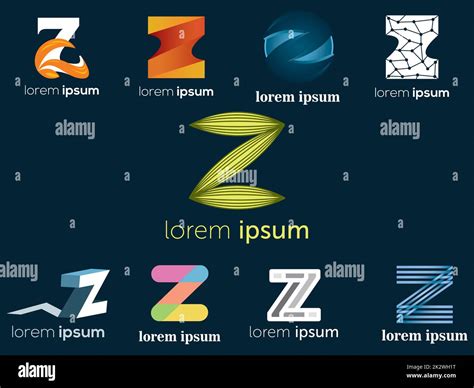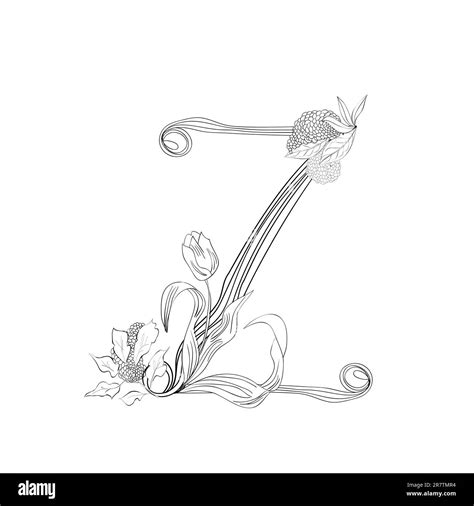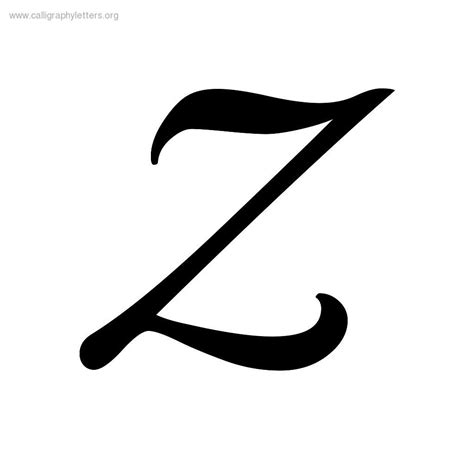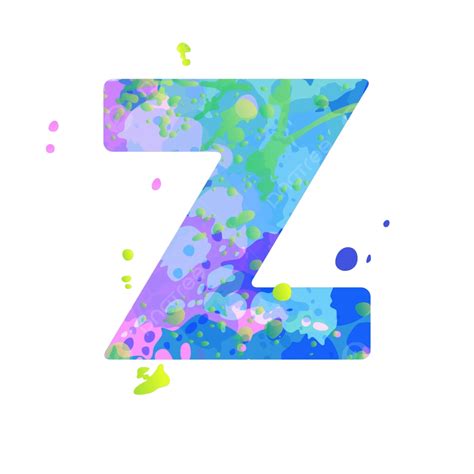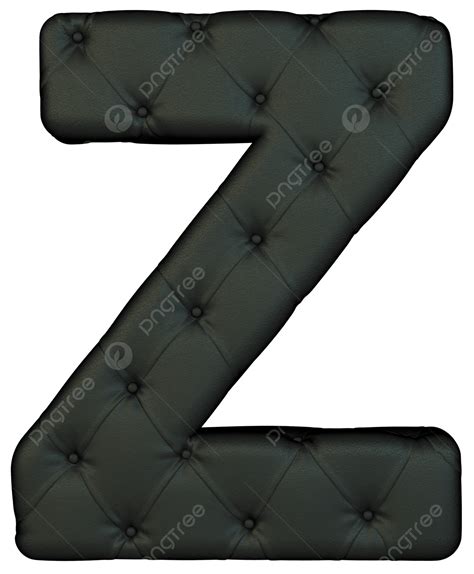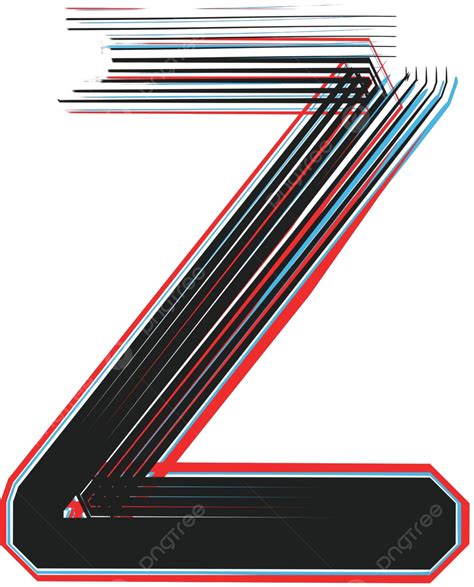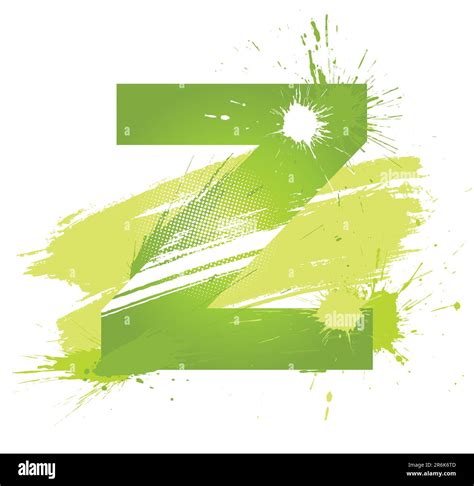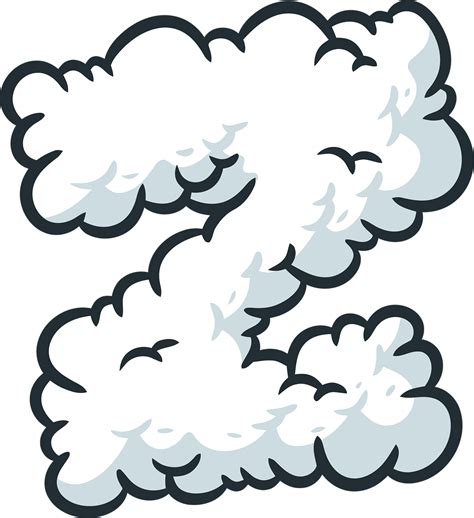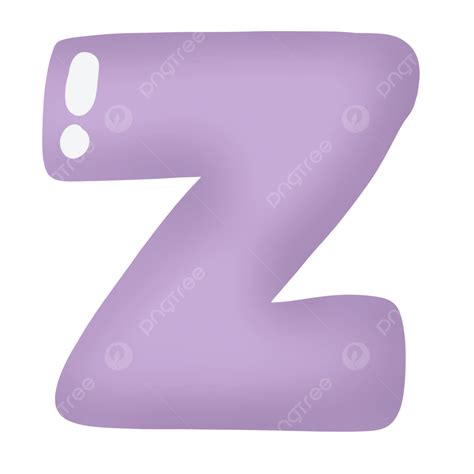
Finding the perfective Font For Z can oft sense like searching for a needle in a hayrick, peculiarly when you are trying to capture the unique geometry of the last letter of the alphabet. The letter Z is characterized by its sharp angles, aslant cva, and proportionate weight distribution, which can be tricky for many face to balance effectively. Whether you are plan a flowing logo, a high-fashion column gap, or a minimalist interface, take a typeface that complements the typical silhouette of the Z is essential for visual concordance. By exploring several typographic styles, from geometric sans-serifs to expressive display fonts, designer can ensure that every fibre, particularly the final one, vibrate with the destine mood and message of their originative task.
The Anatomy of the Letter Z
Understanding why choose a Font For Z matters requires a nigh face at the anatomy of the letter itself. The Z is fundamentally an angular quality that bank on horizontal and slanting interplay. Unlike the rhythm O or the erect I, the Z create stress and directionality.
Geometric vs. Humanist Styles
When you are looking for the best typeface, you must decide between two primary way:
- Geometrical Sans-Serifs: These prioritise mathematical precision. The Z in these fonts often features perfectly parallel top and prat bars, creating a very stable, mod face.
- Humanist Typefaces: These font proffer more variation in stroke breadth and lineament structure, do the Z feel more organic and less unbending, which is oft prefer for long-form reading.
💡 Note: When testing a face, always typecast the word "Zebra" or "Puzzle" to see how the Z interacts with other letter in your elect set.
Choosing the Right Style for Your Project
The wallop of your composition depends on the context. If you are act on a luxury brand individuality, you might slant toward high-contrast seriph baptistery where the Z exhibits elegant, penetrative serifs. Conversely, for tech-focused branding, a monospaced or bold geometric mode often performs well. The key is legibility and character.
| Design Style | Best Font Characteristic | Ideal Use Case |
| Minimalist | High x-height, slender strokes | Web UI, Mobile Apps |
| Bold/Display | Thick, unvarying weight | Logo Design, Signage |
| Traditional | High line serifs | Print Editorial, Write |
Common Challenges in Typography
One mutual subject decorator front is that the Z can sometimes look "unbalanced" if the font has poor kerning. Because of the hollow space created by the diagonal cva, the Z ofttimes needs manual fitting. If your chosen Font For Z doesn't support advanced OpenType features, you may find yourself struggling to fold the optical gaps between the Z and contiguous character like' a ', ' e ', or' o '.
Tips for Improving Readability
- Conform Kerning: Manually tucking in the negative space around the Z can fix awkward gaps.
- Weight Dispersion: Ensure that the aslope bar of the Z isn't too lean compared to the horizontal strokes, as this can make the lineament face fragile at pocket-size size.
- Contextual Surrogate: Face for fonts that render stylistic set, countenance you to swap a standard Z for a more conventionalised or simplified version.
💡 Note: Always assure the "italic" version of a typeface. Many fount whole change the construction of the Z when italicise, which could either helper or hamper your labor designing.
The procedure of take the correct typeface involves more than just esthetics; it is about happen a balance between the functional requirements of your layout and the visual weight of individual missive. By carefully evaluating how the Z interacts with other fibre, checking its behavior in different weights, and secure the spacing remains ordered, you can elevate the professionalism of any design. Prioritizing clarity and character will always lead to a more polished issue, insure that your choice of fount serves as a potent foundation for your creative vision. Whether you opt the acuate lines of a modern sans-serif or the greco-roman influence of a serif typeface, give near attention to the details of each letter will transform your typography into a cohesive and impactful element of your employment.